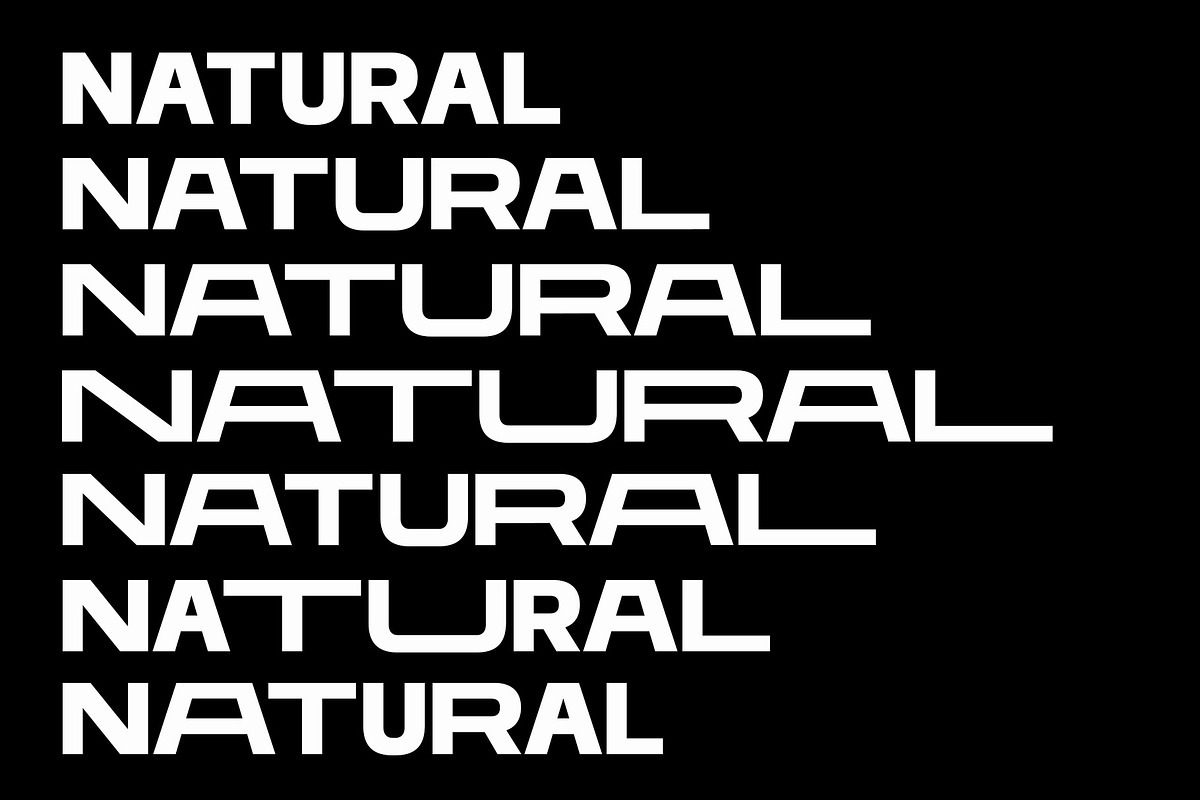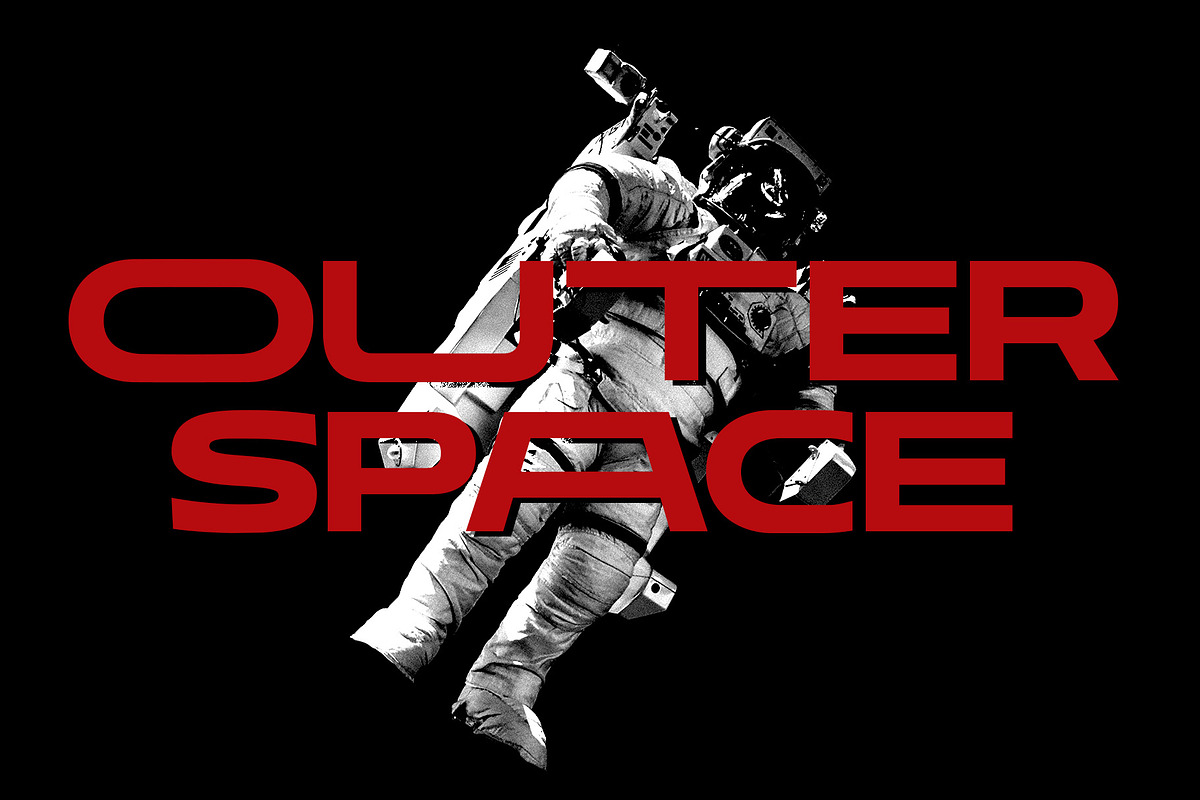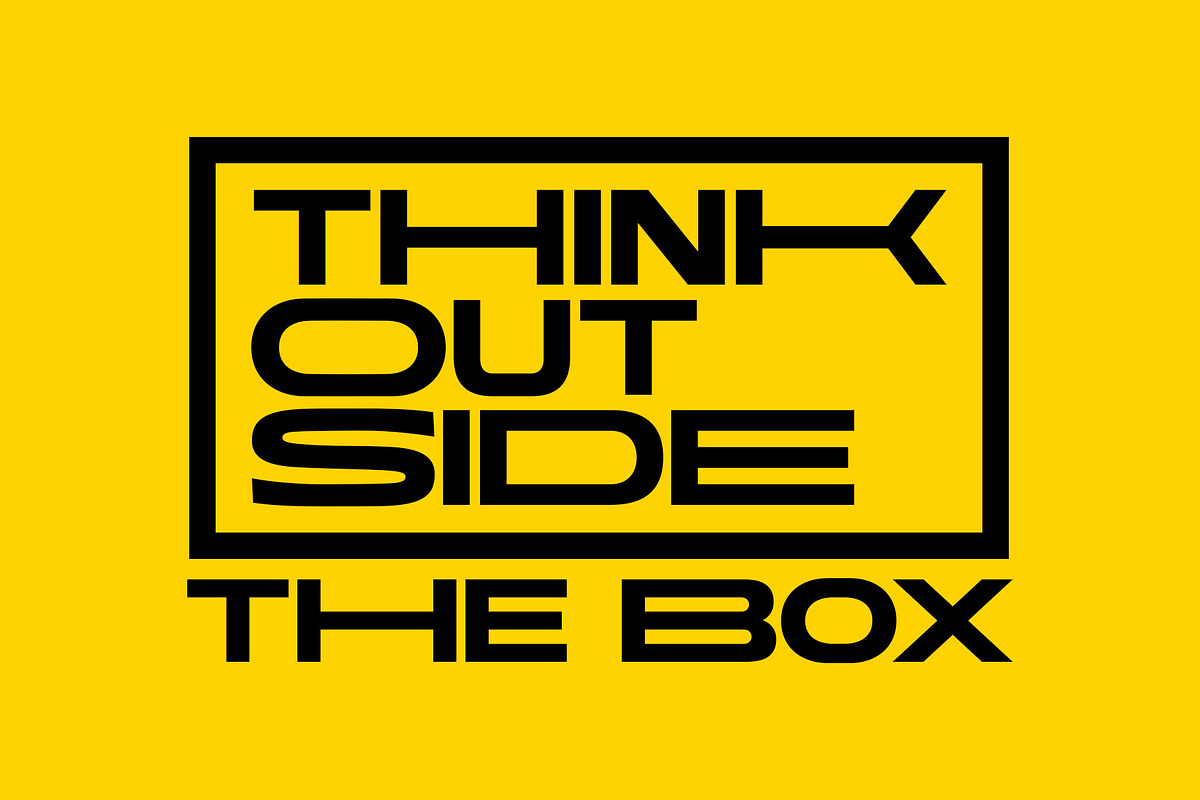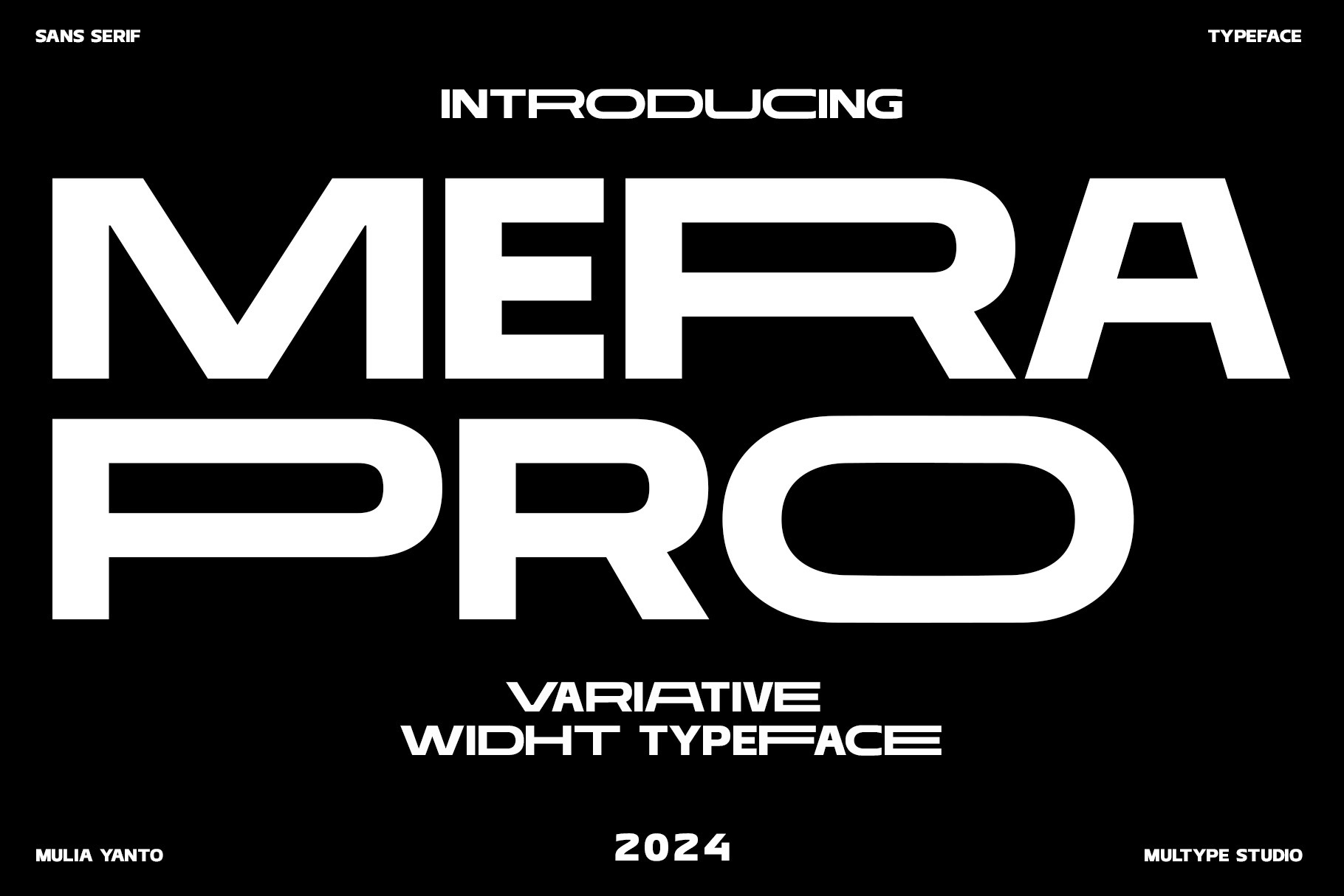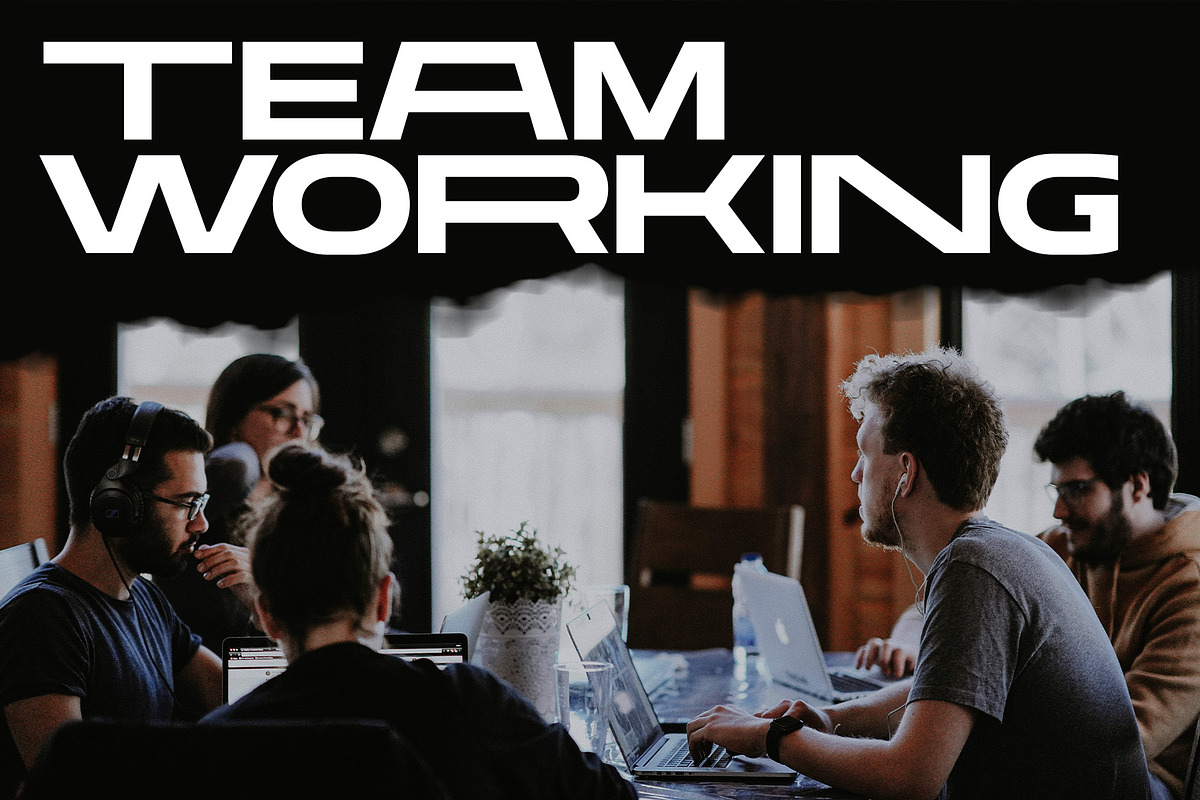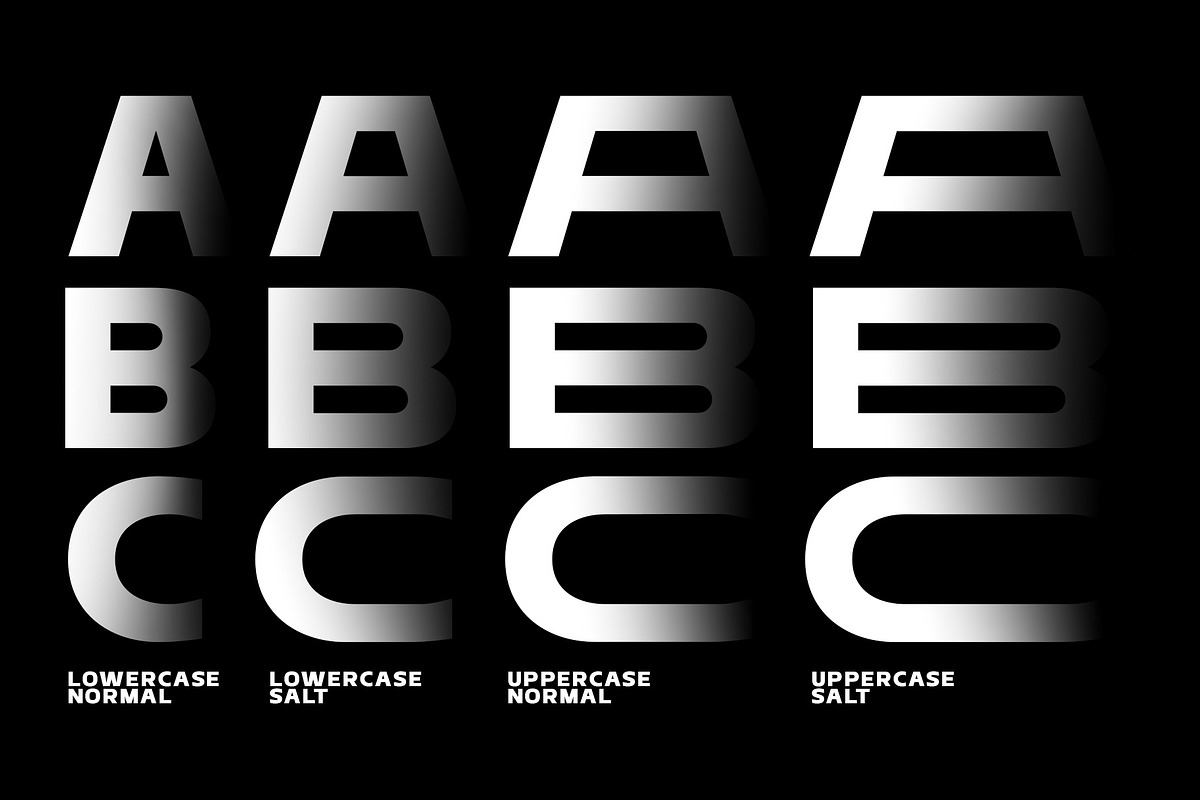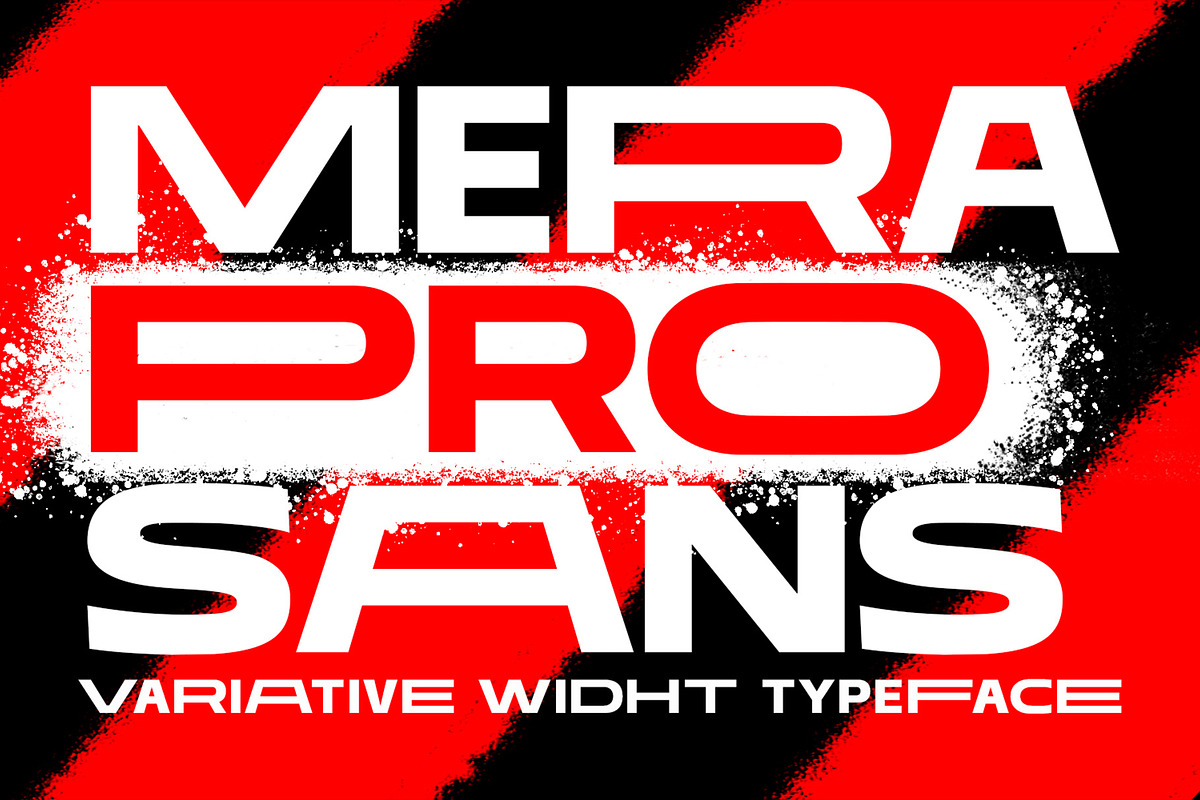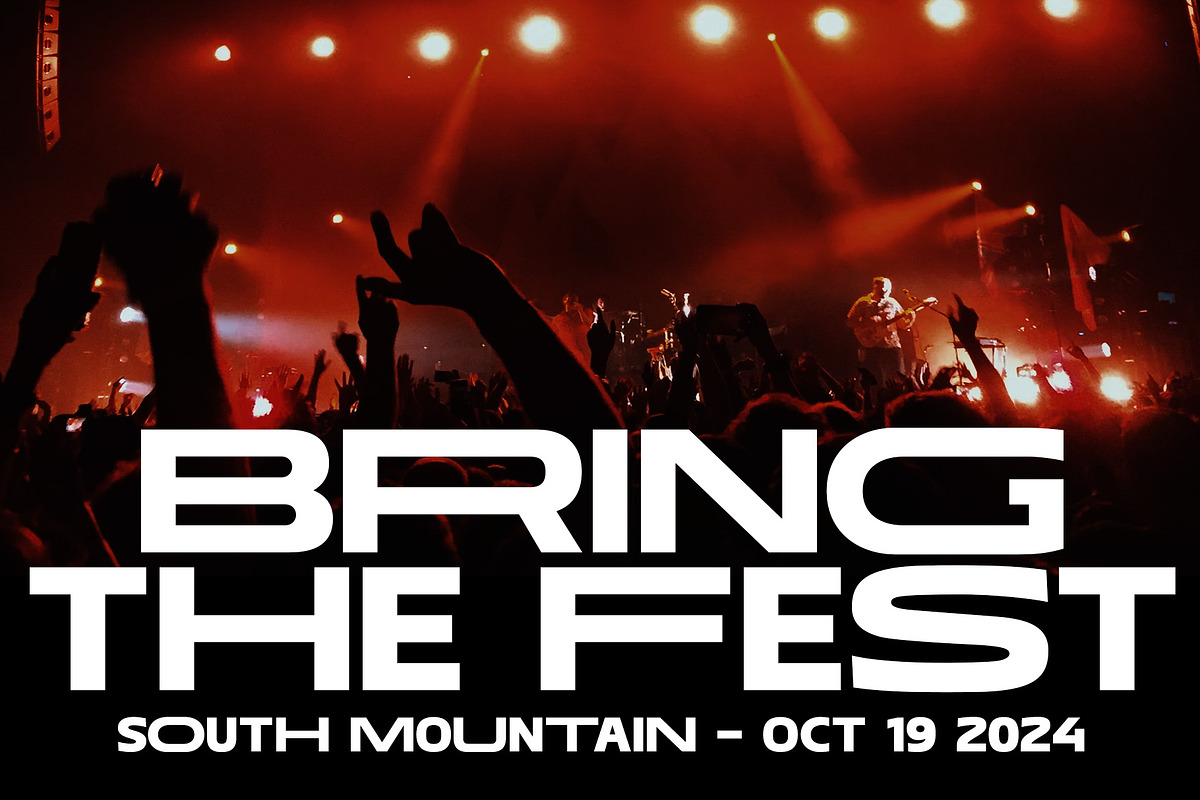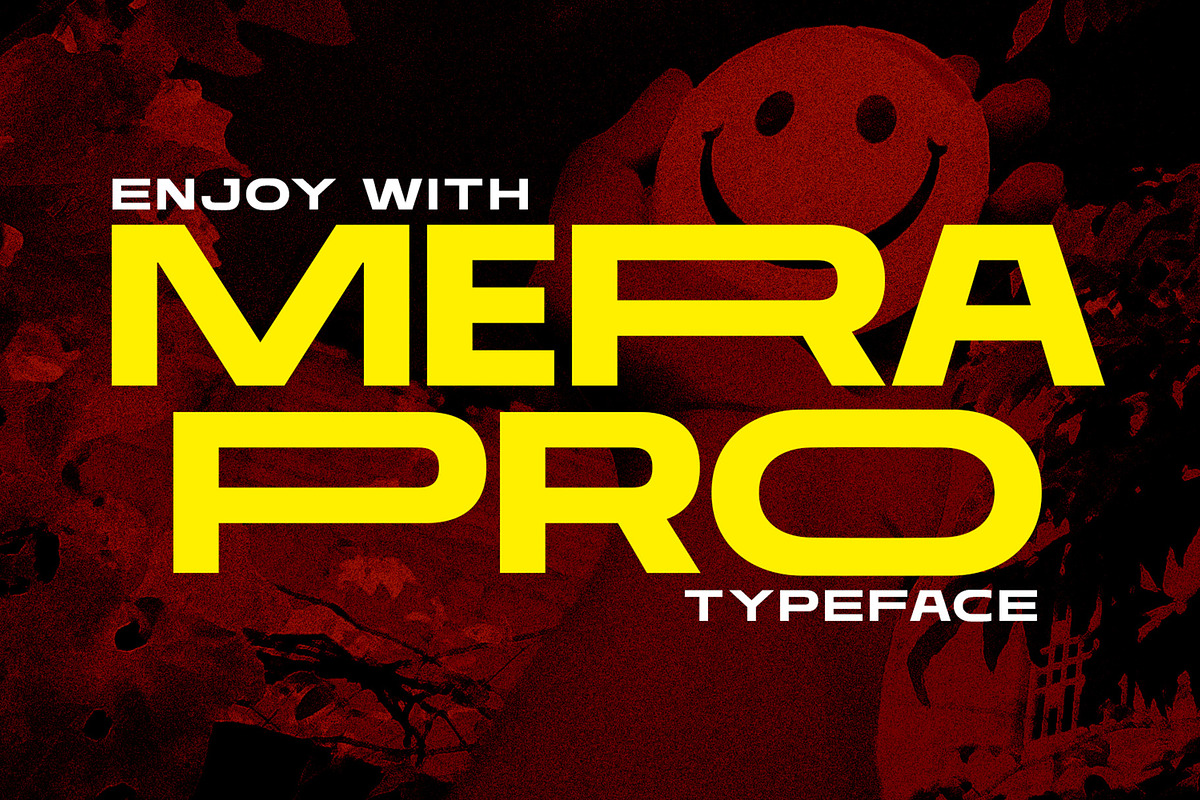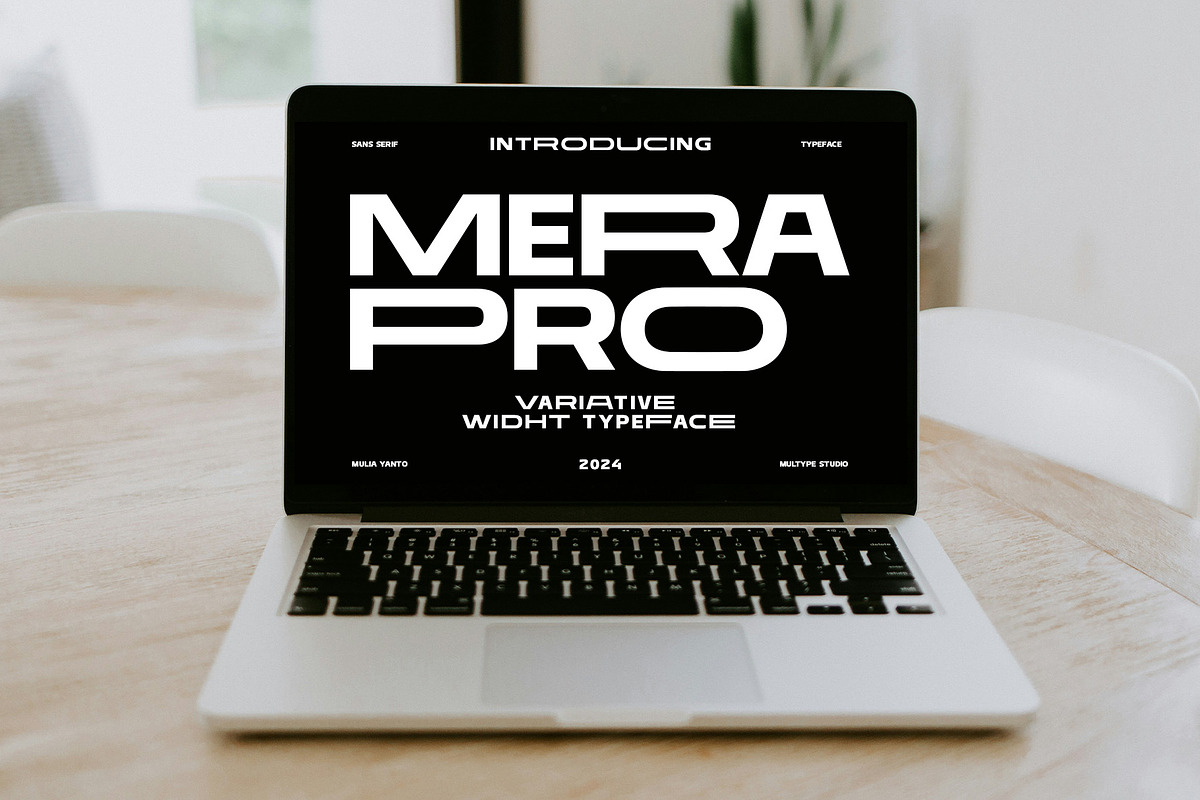
Mera Pro Variable Sans Font
Mera Pro is an expanded sans serif typeface of varying widths, with 4 alternatives. Making this font suitable for use in any design. With a curated width, it looks clean, bold, strong and eye-catching. This font is also suitable to be applied especially in logo, branding, promotions, posters, book covers, magazine layouts, social media, headlines, titling, movie title, logo brand, logo company, layout website and other design. What’s Included :